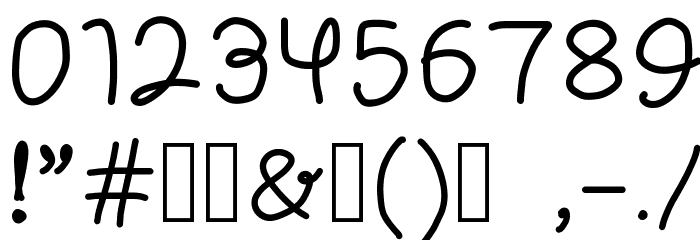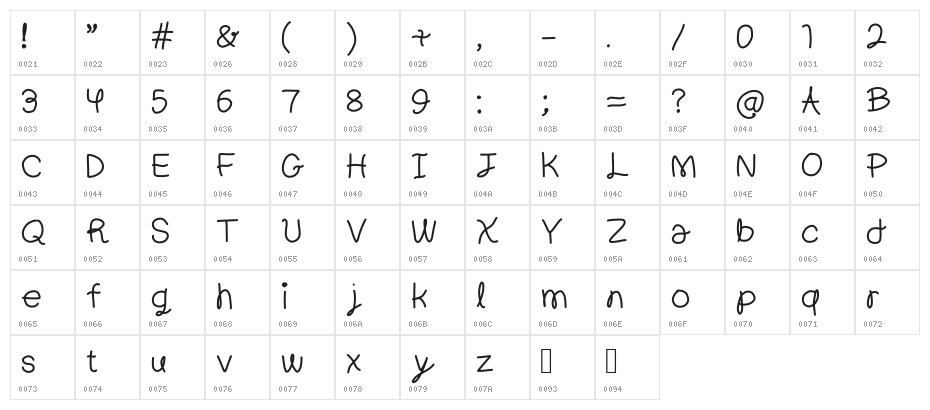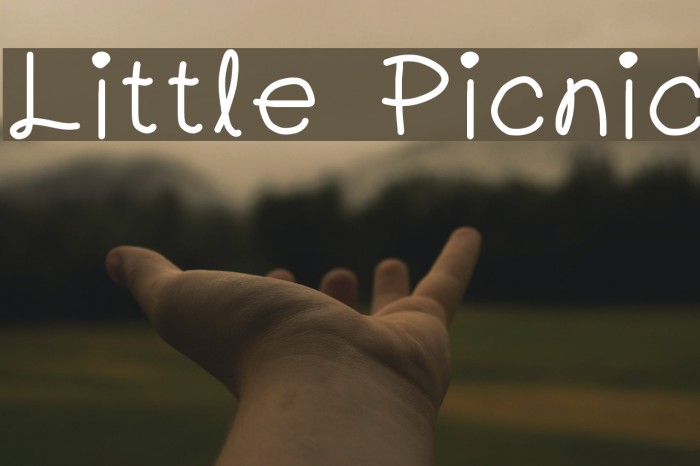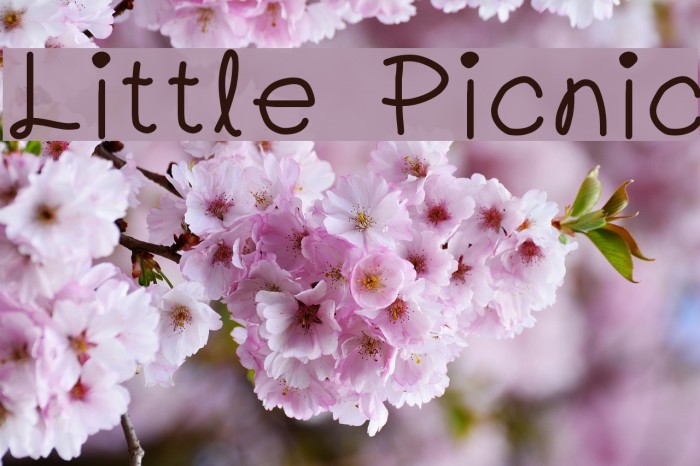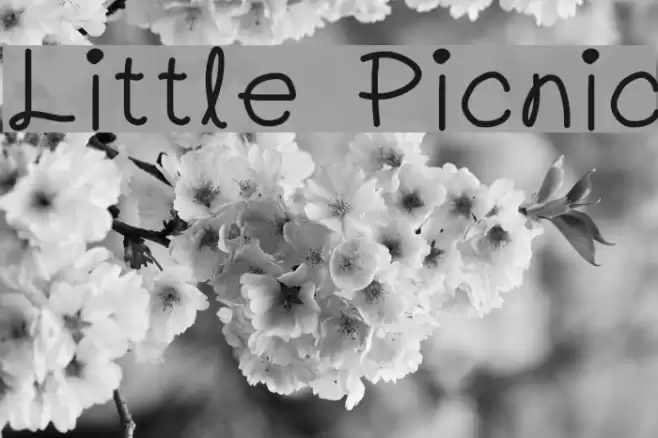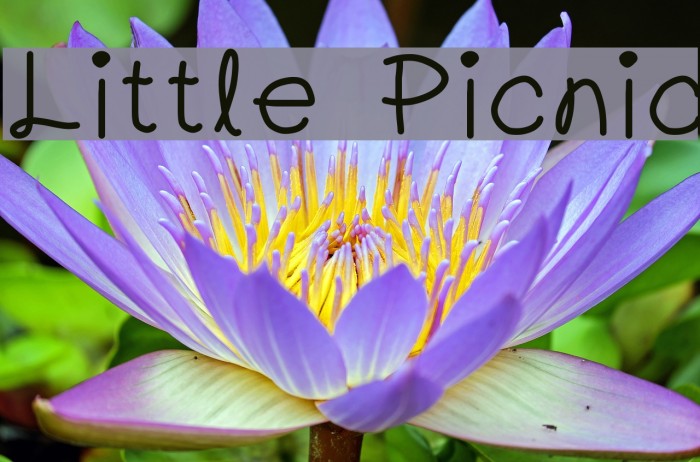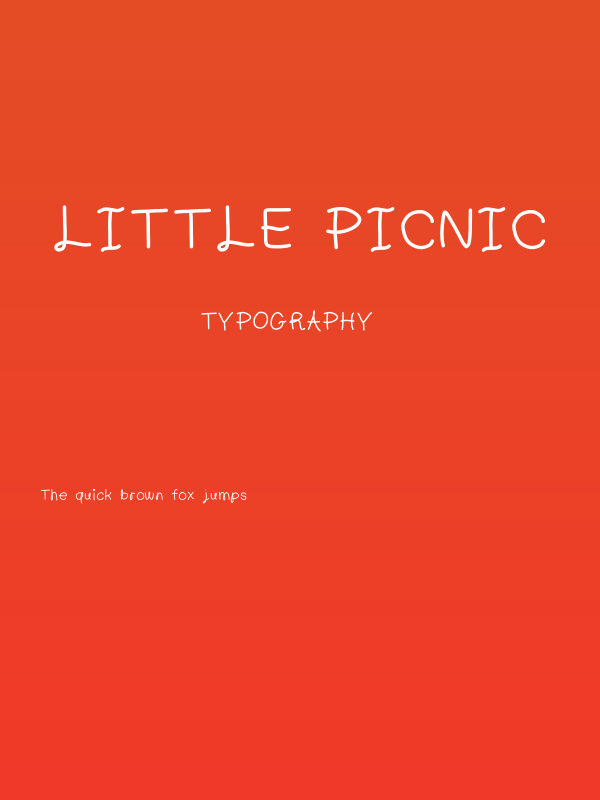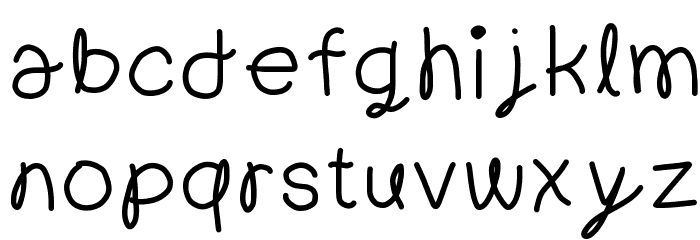
Little Picnic Font
Little Picnic Description
This font features a playful and whimsical style, characterized by its handwritten appearance. The letters are slightly irregular, giving it a casual and friendly feel. The strokes are smooth and rounded, with a consistent thickness that adds to its approachable nature. The uppercase and lowercase letters maintain a uniform height, contributing to a cohesive look. Numbers and special characters are designed with the same playful touch, making this font suitable for projects that require a personal and informal tone.
| Use Case | Headlines, Logos, Informal text |
| Proposed Projects | Ideal for children's books, greeting cards, playful branding, and casual invitations. |